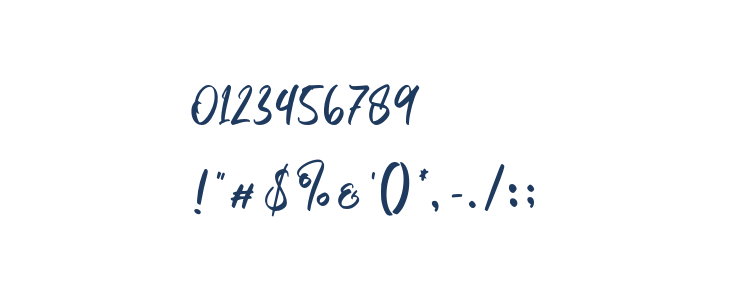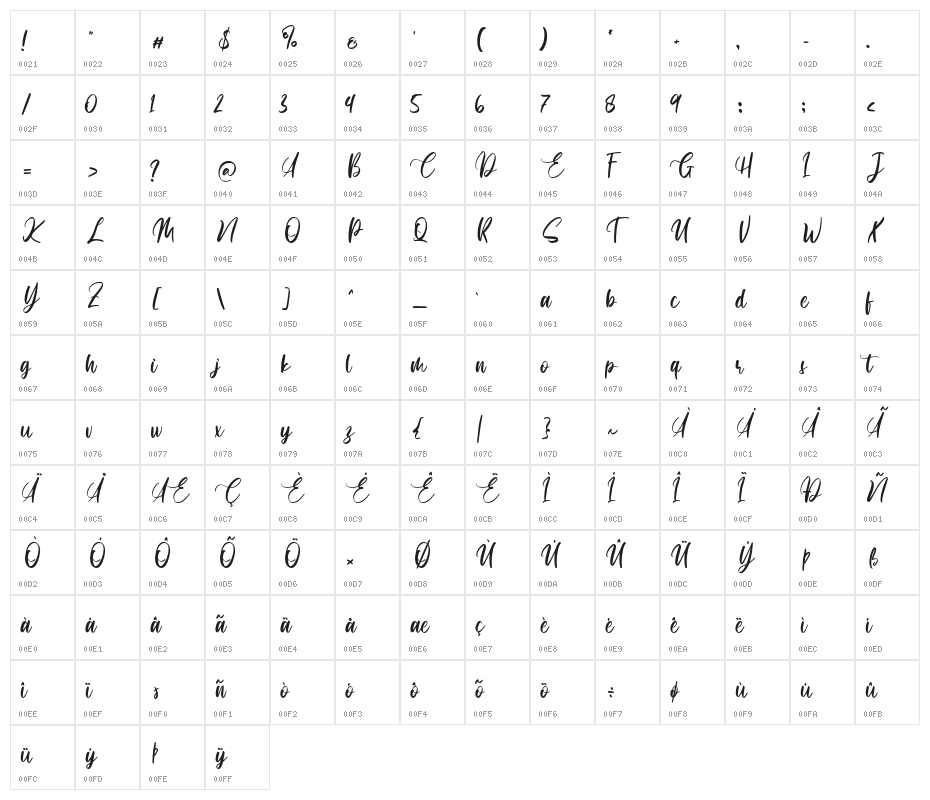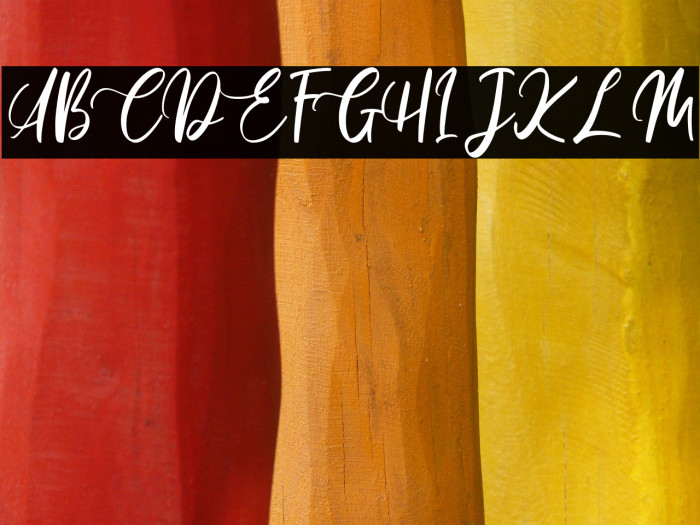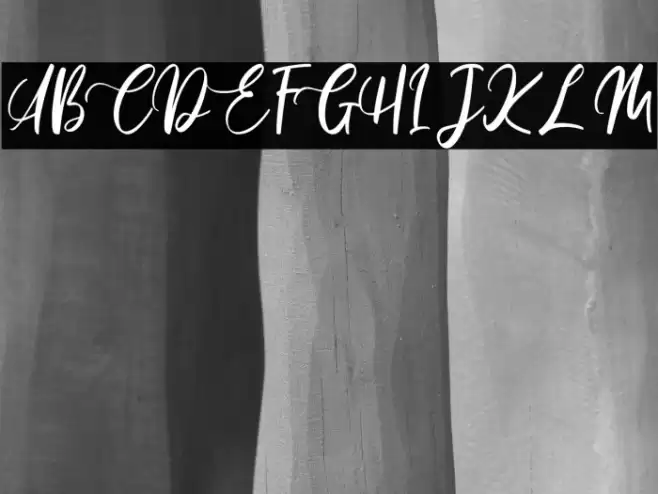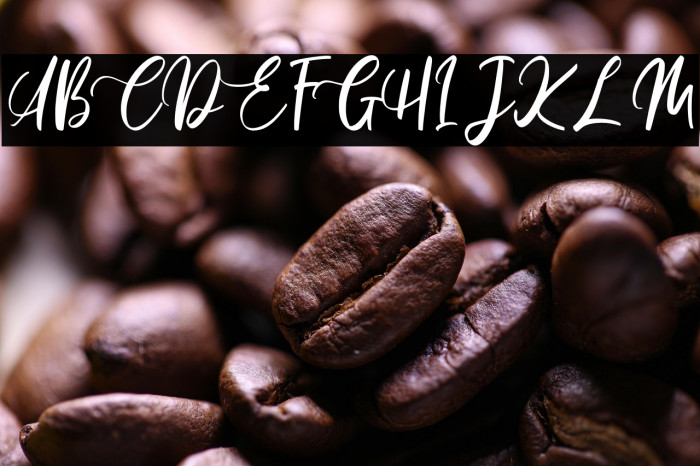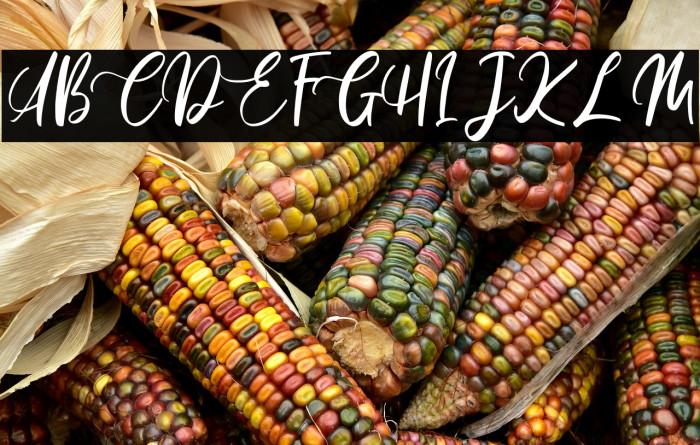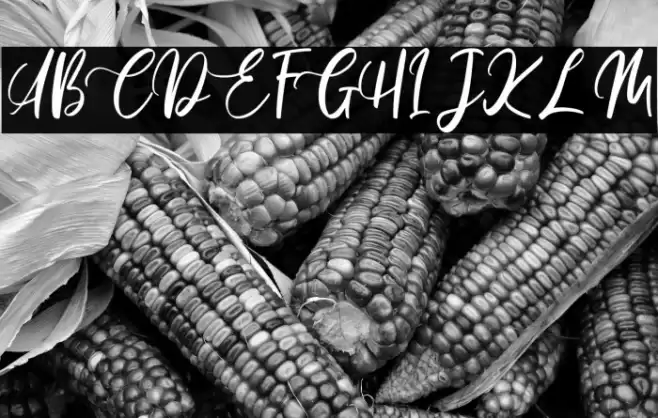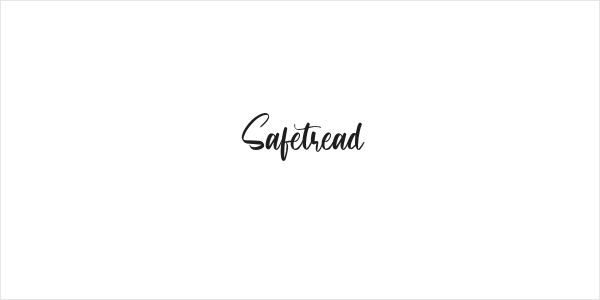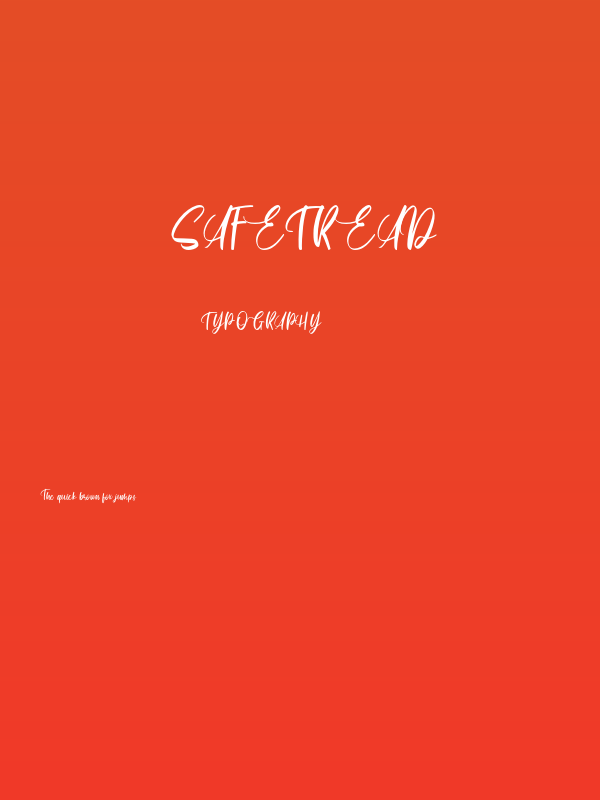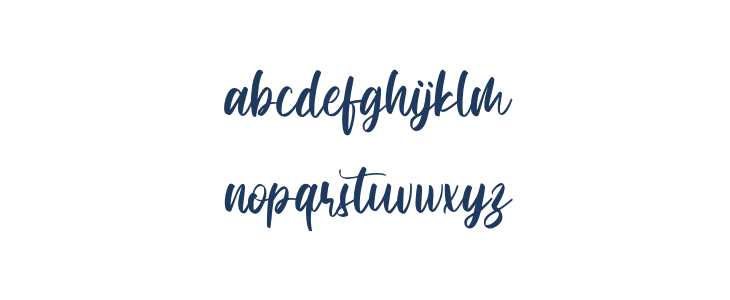
Safetread Font
Safetread Description
This font features a flowing, cursive style with elegant loops and swashes, giving it a handwritten appearance. The uppercase letters are bold and expressive, with varying stroke widths that add a dynamic feel. The lowercase letters maintain a consistent style, with smooth connections between characters, enhancing the script's fluidity. Numbers and special characters are designed to match the overall aesthetic, ensuring a cohesive look. This font is ideal for projects that require a personal touch or a sense of sophistication.